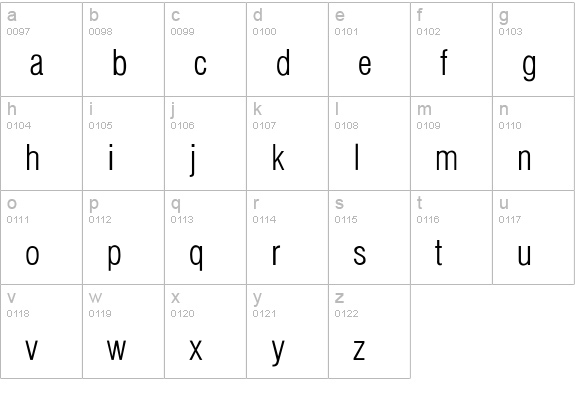
Partridge-Condensed-Light-Li is a refined, elegant, condensed-width variant in the Partridge typeface family \xE2\x80\x94 well suited to elegant body text, refined sub-headings, and luxury branding.
Partridge-Condensed-Light-Li font is a stunning typeface that exudes elegance and sophistication. With its sleek, slim design and delicate curves, this font is perfect for adding a touch of refinement to any project. Its condensed form allows for maximum versatility, making it ideal for a wide range of design applications. Whether you are creating a logo, designing a website, or crafting a beautiful invitation, Partridge-Condensed-Light-Li font will elevate your work to new heights. The light weight of this font adds a sense of delicacy and grace, making it a perfect choice for projects that require a subtle touch. The letters flow effortlessly, creating a harmonious rhythm that is pleasing to the eye. What sets Partridge-Condensed-Light-Li font apart is that it is not only visually stunning, but it is also free to use. You read that right - this exceptional font is freely available to download at FontsMarket.com. Now you can enhance your designs without breaking the bank. So why wait? Take advantage of this amazing opportunity and download Partridge-Condensed-Light-Li font today. Let its beauty and elegance transform your design projects into works of art.